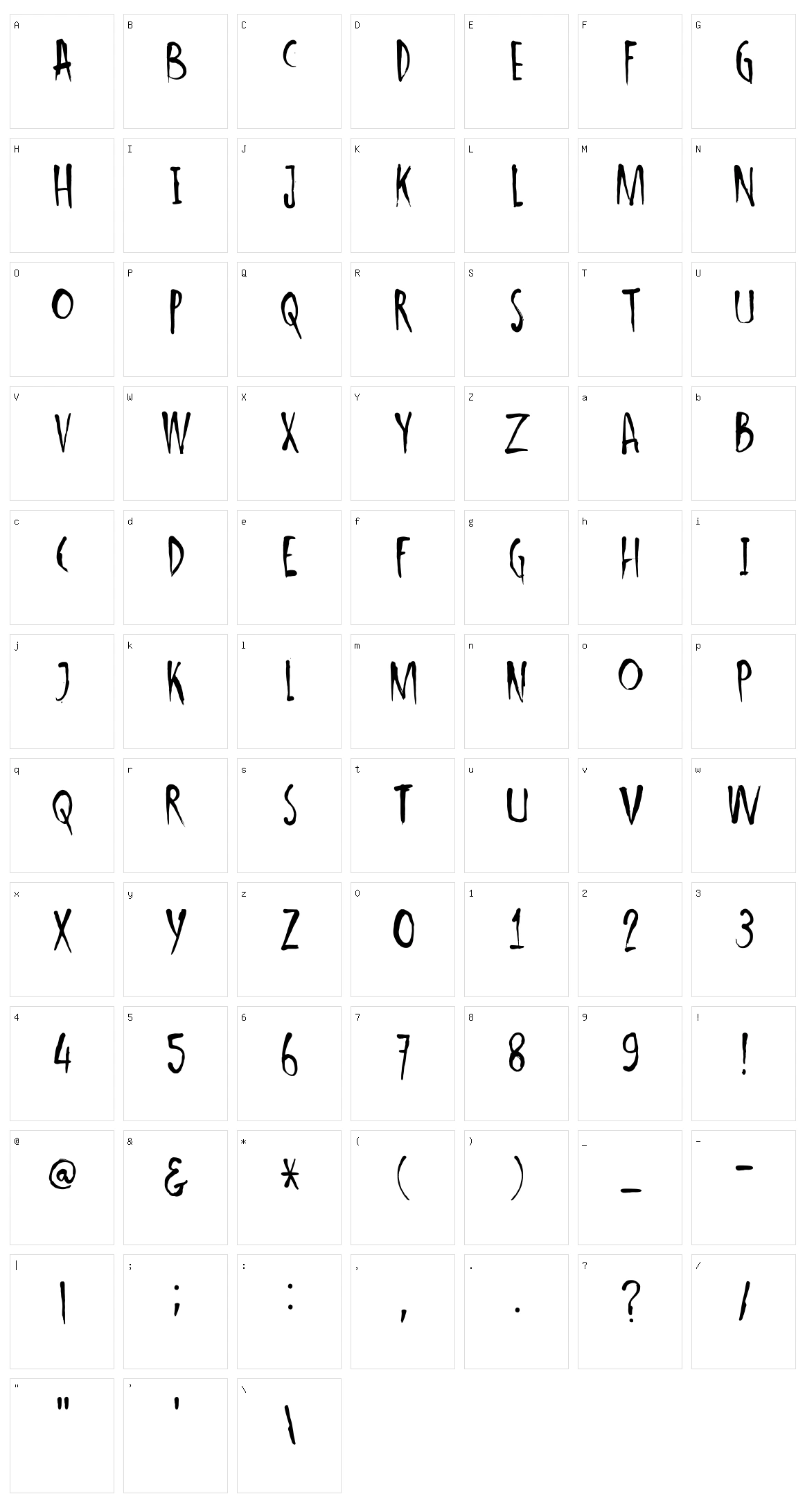
The free font DK Ishtar is carefully designed by Hanoded, showcasing a thoughtful balance of creativity and usability and falls under the Horror font style. When you download the ZIP file, it contains only 353.41 KB of font files, making it lightweight and quick to download. Please review the license details below to understand permitted usage and distribution rights. If license information is not available, we recommend using this font for personal projects only or contacting the author directly for commercial usage permissions.